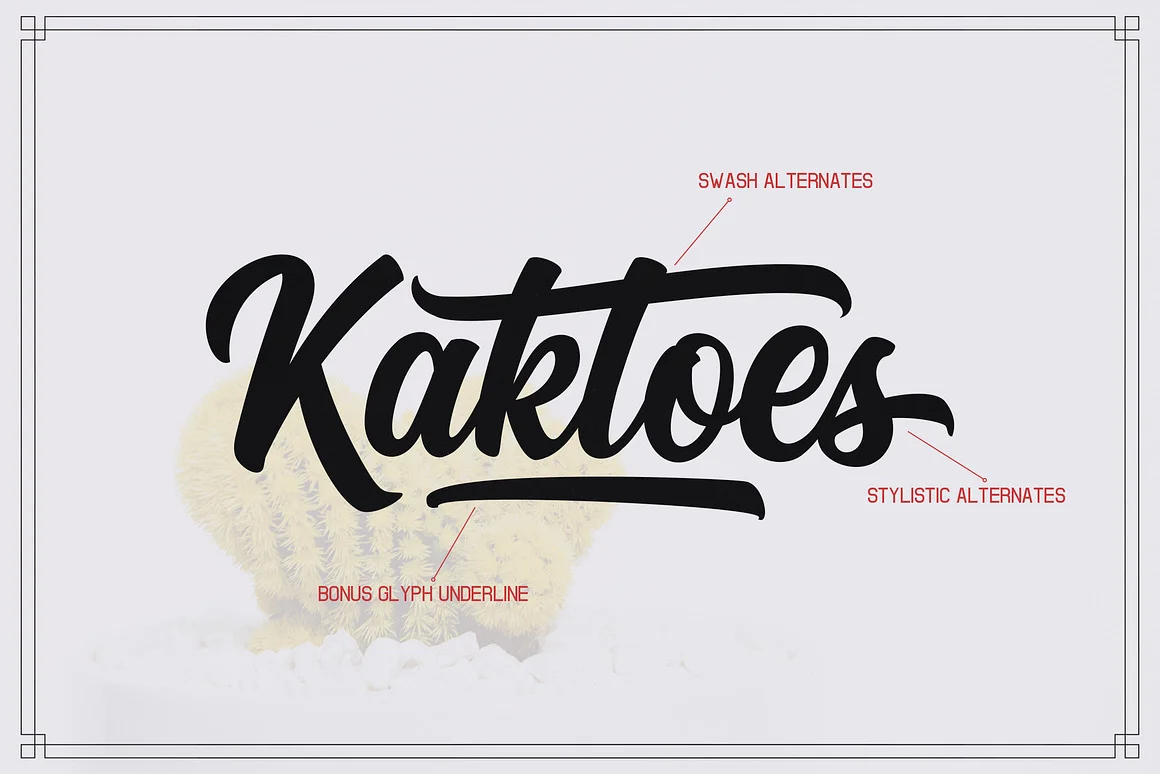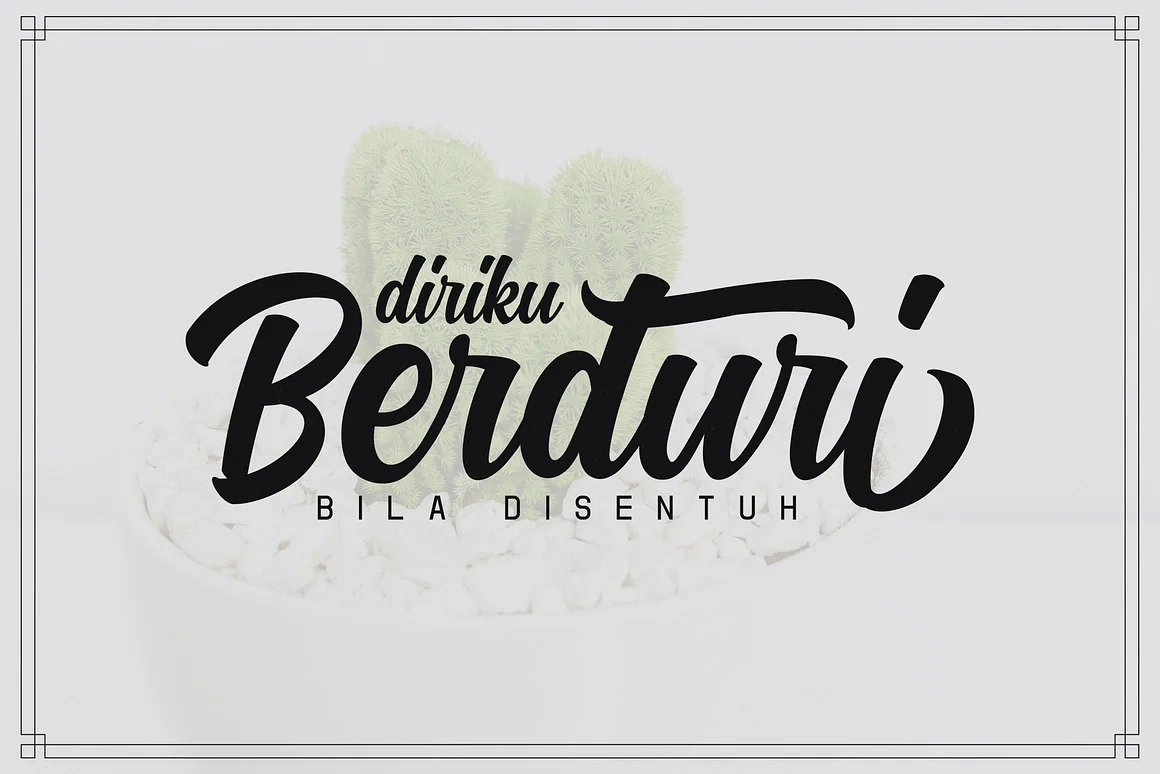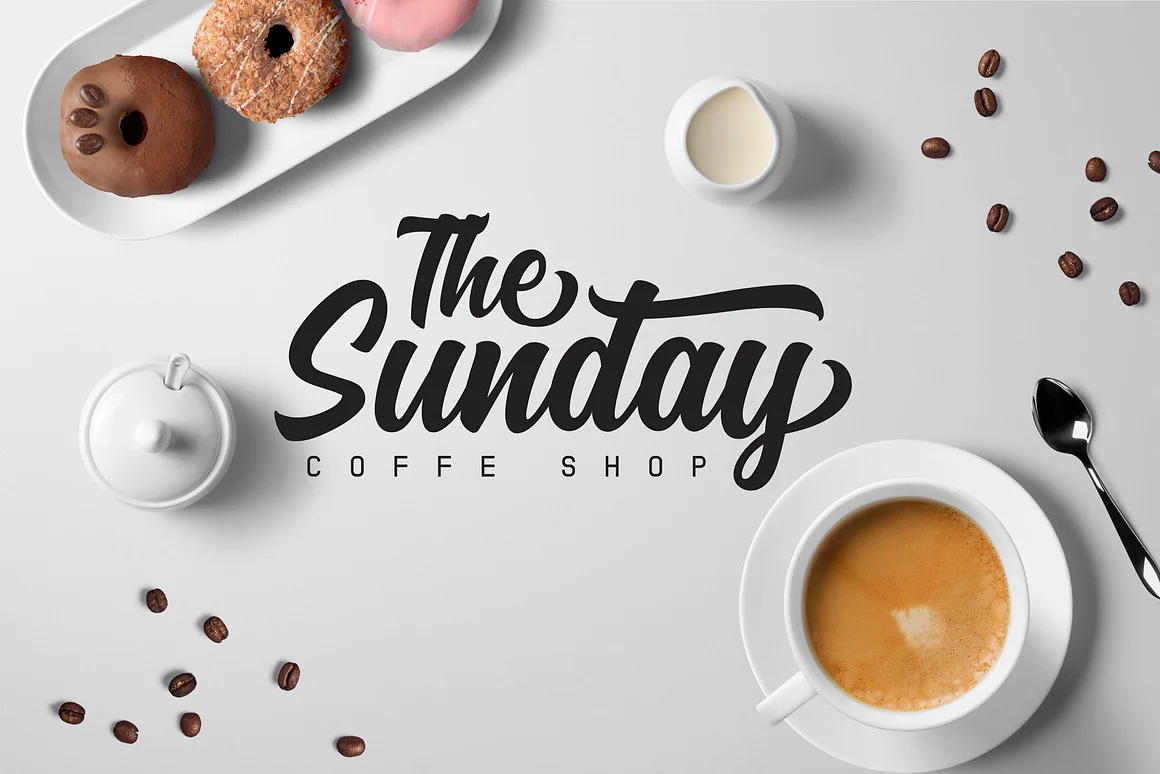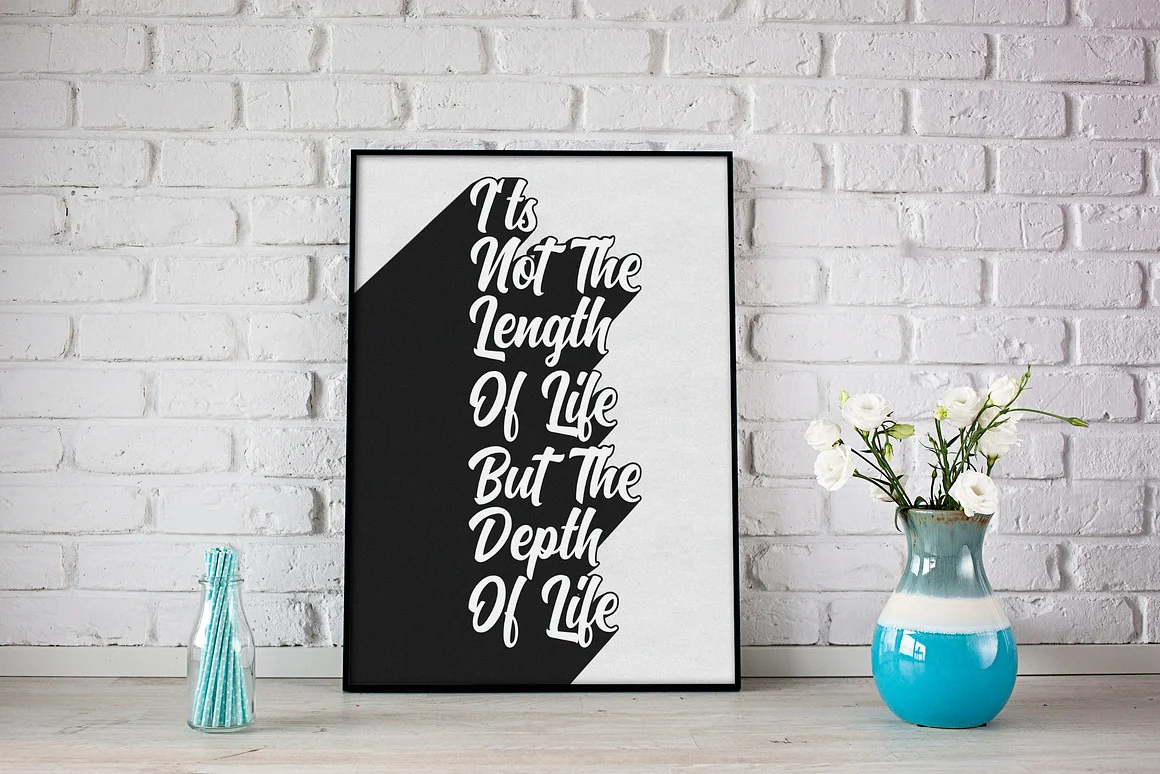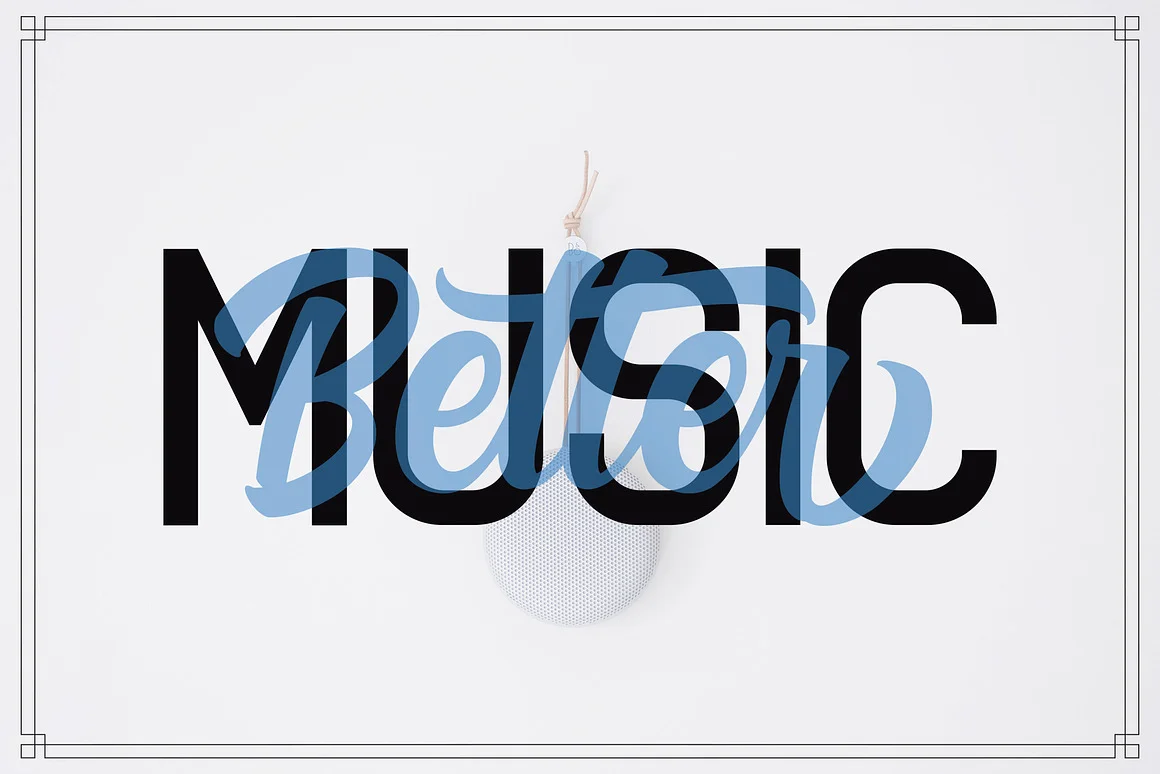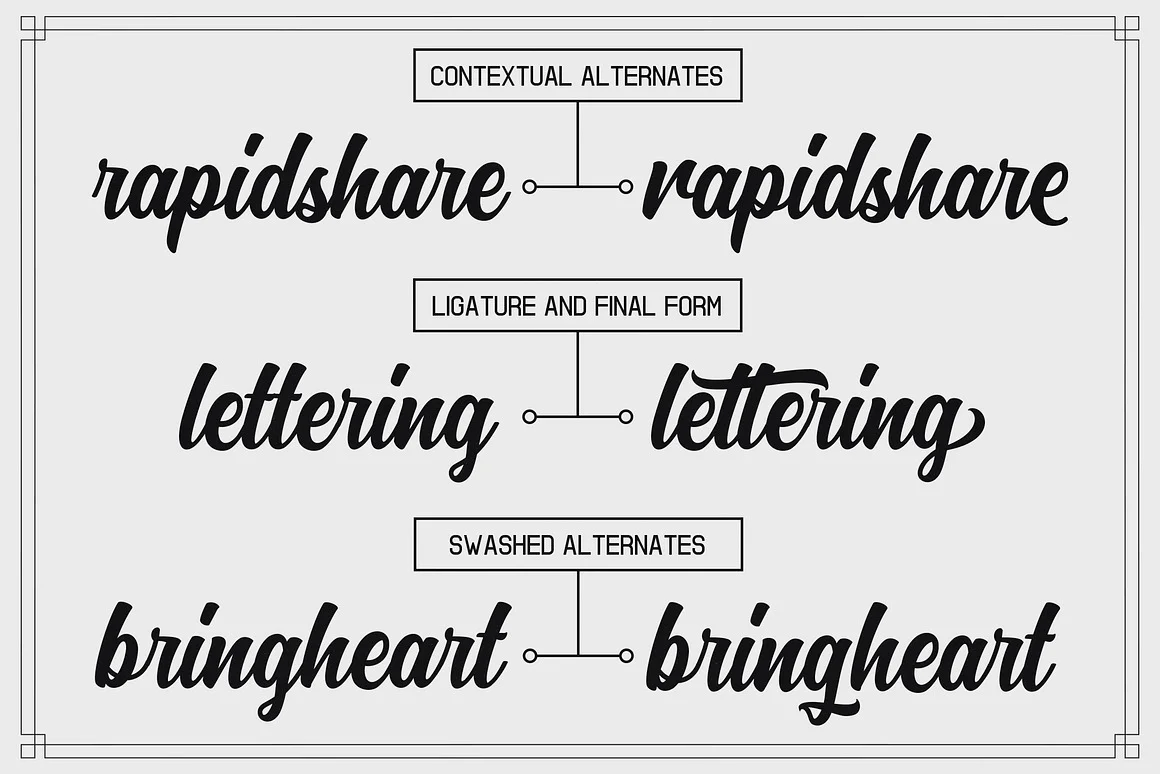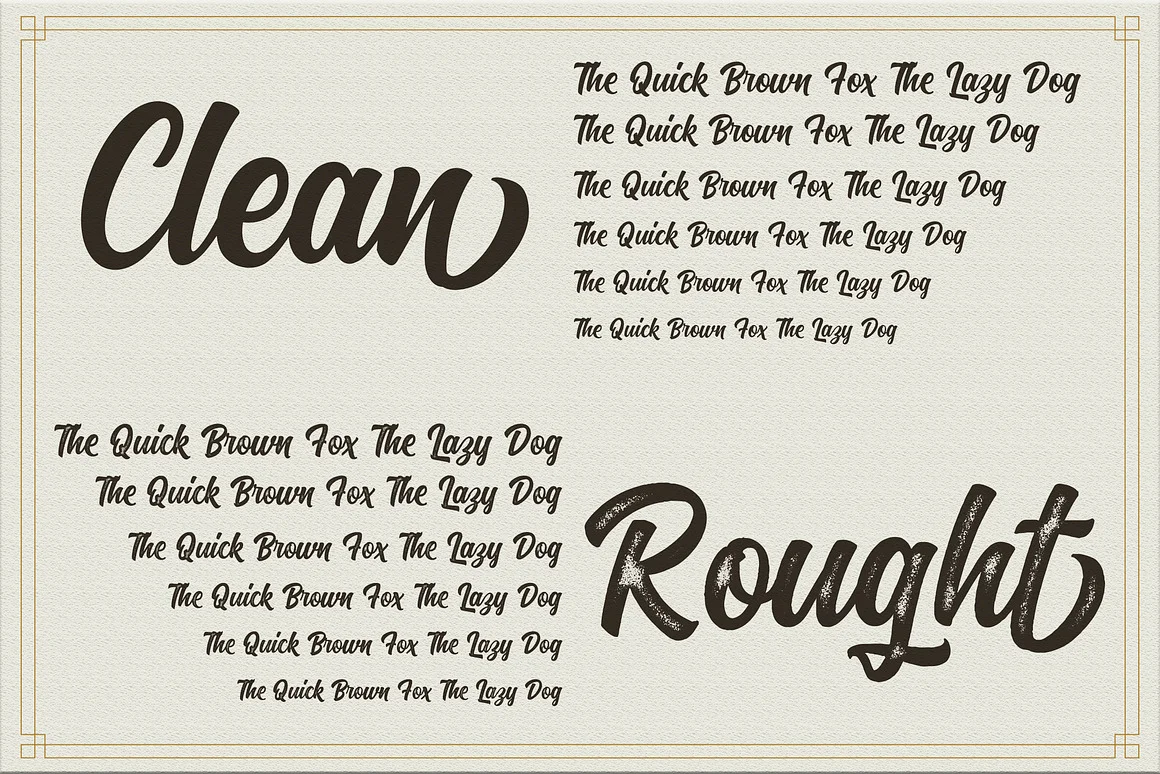
Kaktoes Script Font
This Kaktoes Script Font is perfect for desert-themed branding, southwestern restaurant signage, cactus garden center materials, desert resort promotions, western adventure graphics, arid landscape photography studios, succulent plant packaging, desert spa communications, southwestern craft labels, and drought-resistant lifestyle branding.
What makes this Kaktoes Script Font exciting is its desert resilience that captures the enduring beauty and adaptive strength of cactus plants in harsh environments. The font features flowing script letterforms with spiky characteristics that convey natural toughness, desert authenticity, and southwestern charm. Its resilient character and desert-inspired design make it ideal for brands seeking to communicate survival strength, natural adaptation, and southwestern excellence in outdoor and lifestyle markets.
The Kaktoes Script Font family includes regular, medium, and bold weights with desert alternates, southwestern variants, and cactus-inspired flourishes. This comprehensive desert font family provides designers with resilient typographic tools to create authentic compositions while maintaining the southwestern character essential for desert lifestyle and outdoor adventure brand communications.
Desert resorts and southwestern businesses consistently choose Kaktoes Script Font for projects requiring authentic desert appeal and southwestern credibility. This font's distinctive resilient character perfectly captures the natural toughness and desert beauty that resonate with audiences who appreciate southwestern culture, desert landscapes, and brands that embody natural resilience and adaptive strength.
The adaptive construction of Kaktoes Script Font showcases naturally flowing letterforms with desert proportions that ensure exceptional authenticity across all southwestern applications. Its resilient appearance and desert character create memorable impressions while maintaining the readability necessary for effective southwestern communication and desert lifestyle materials.
Professional designers appreciate how Kaktoes Script Font brings immediate desert authenticity and southwestern charm to brand communications. The font's resilient nature allows organizations to communicate natural toughness and desert excellence while maintaining the professional quality necessary for effective positioning in outdoor lifestyle and southwestern tourism markets.
The enduring appeal of Kaktoes Script Font makes it particularly effective for brands emphasizing desert resilience, southwestern heritage, and natural adaptation. Its tough character resonates strongly with audiences who appreciate desert landscapes, southwestern culture, and brands that represent the enduring strength and natural beauty of desert environments.
Whether developing branding for desert adventure companies or creating materials for southwestern lifestyle brands, Kaktoes Script Font provides the resilient typographic foundation that desert brands need to communicate their natural toughness, southwestern authenticity, and the adaptive excellence that defines desert survival and southwestern cultural achievement.